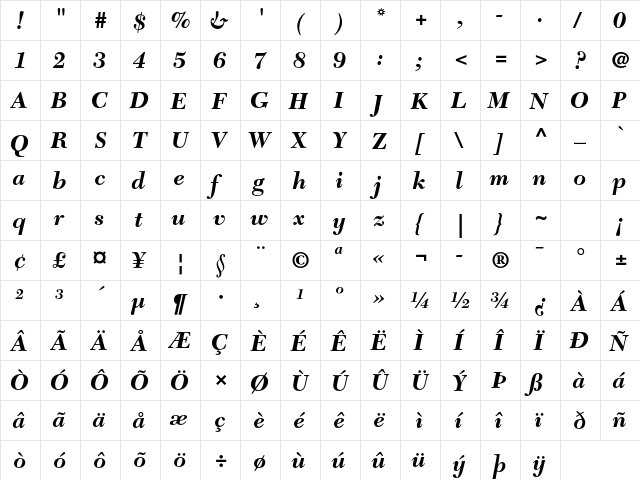
New Caledonia LT Std Bold Italic Font Preview
| Designer | William A. Dwiggins |
Design Context for New Caledonia LT Std Typeface
New Caledonia LT Std offers clean, dependable letterforms without strong stylistic allegiance, making it a practical choice for designers who need flexibility. The dynamic lean of this cut emphasises speed and emphasis in any layout. Its bold stroke weight gives it real presence on the page.
Pro Tip: Try New Caledonia LT Std for annotation and caption copy alongside an upright companion — the contrast in angle creates a dynamic but ordered typographic system.